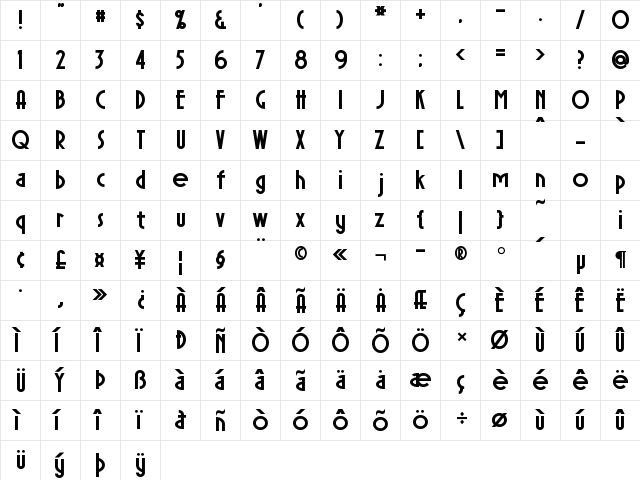
Sierra Madre Bold
| Foundry | Neale Davidson |
| Designer | Neale Davidson |
Design Context for Sierra Madre Typeface
Sierra Madre takes a measured approach to typography — its balanced proportions and neutral character make it a reliable workhorse for both digital and print work. The heavy weight commands attention and anchors typographic hierarchies.